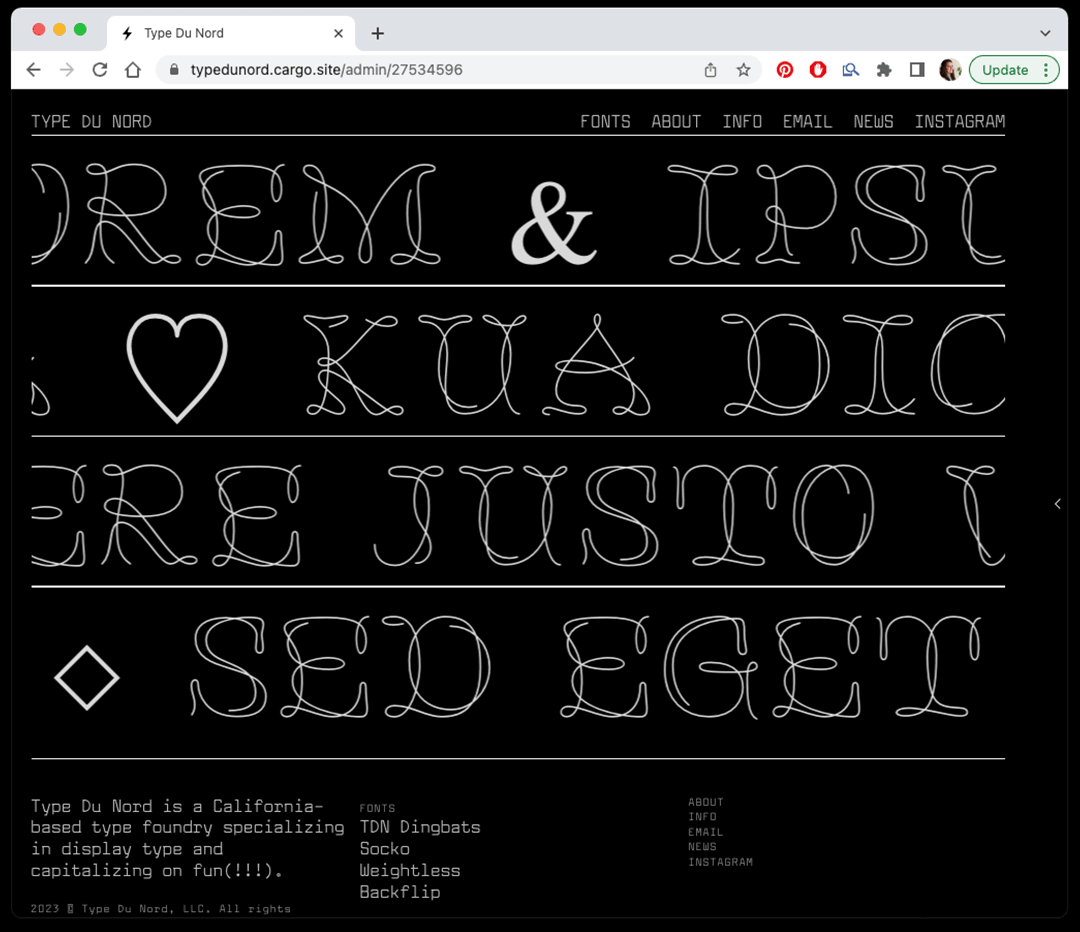
I have something really big to share. I get to cross off another goal!!! I am speaking as part of a Type Electives lecture series and I’m so honored to be a part of it. At the end of next month (March 24th to be precise), I’ll be discussing my experience as a type design student and how I’ve navigated the journey to becoming a *real* type designer.
Otherwise all is well in Libbie Land. My class is finishing up next week — my students are rocking my freakin’ socks off. Most of them claimed to be beginners but wow they look professional to me!!! We are putting together a class specimen that I will share with y’all soon.
Lastly, my website design is set(!!). Now it just needs content. I’m working on getting everything in there except the fonts that aren’t finished yet! I’m stoked though — it’s starting to feel real. Did I mention that my partner and I are also planning our wedding??? I have thought tendrils sprawling in a lot of directions at the moment but it’s all good things!